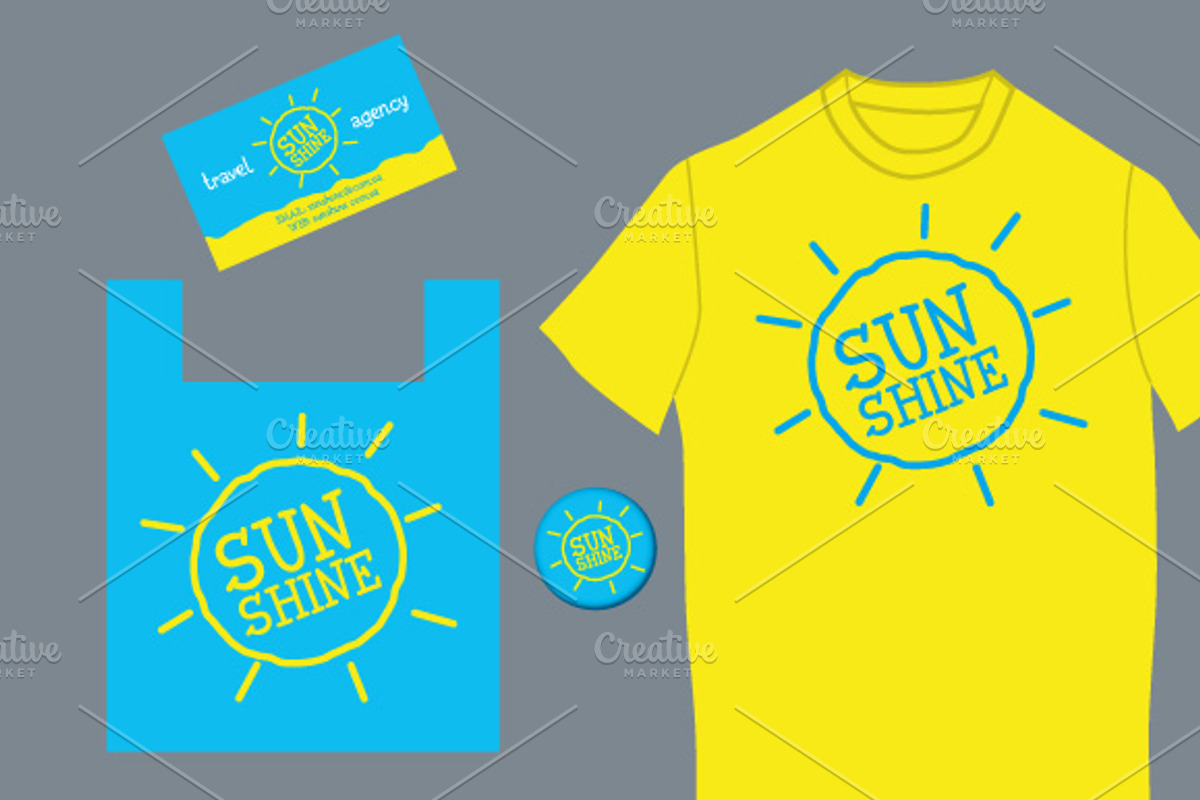
Ugly handcrafted display font
Ugly handcrafted display font by Oleg Tokarev Art is a font selected for branding, posters, packaging, typography.
Why Ugly handcrafted display font is worth a look
Ugly handcrafted display font by Oleg Tokarev Art fits naturally into Branding, posters, packaging, typography.